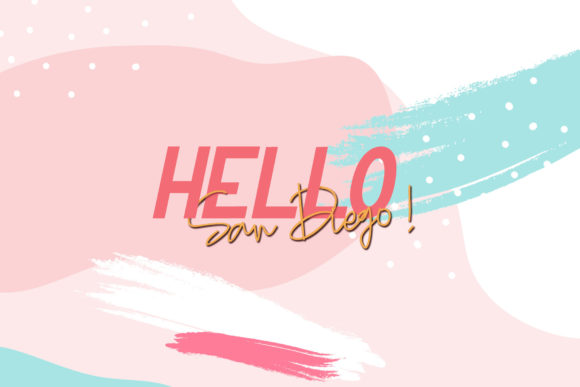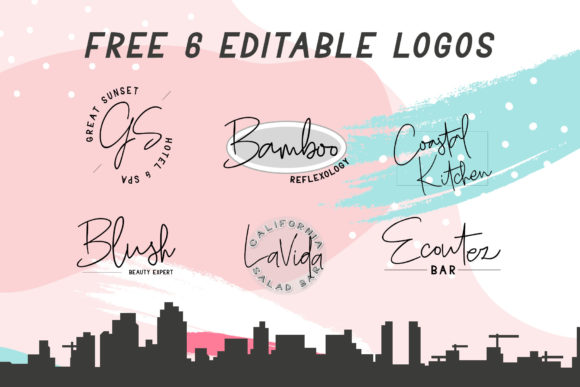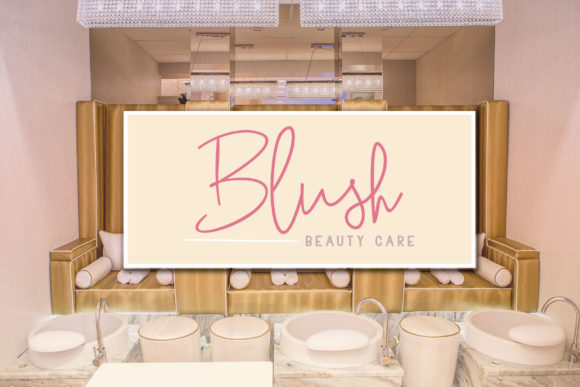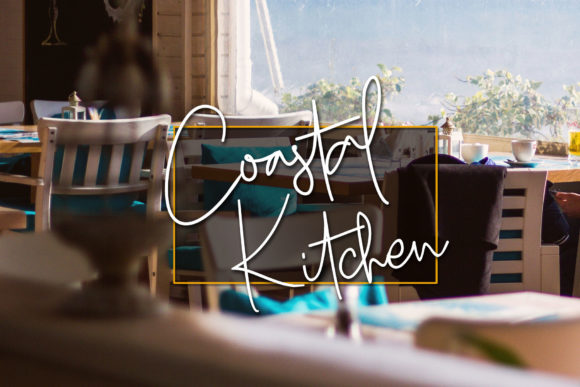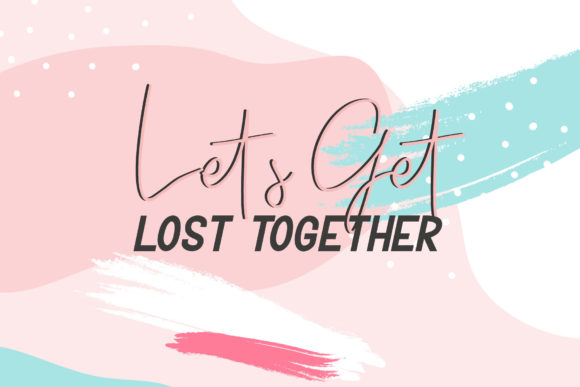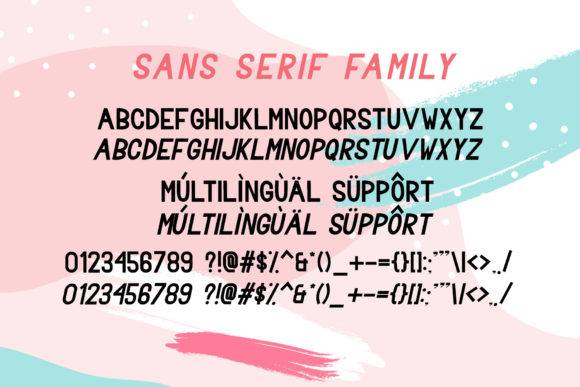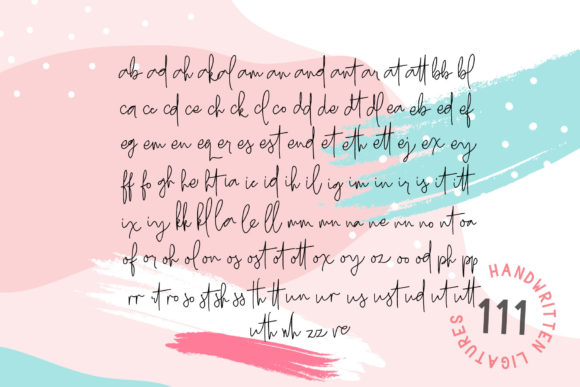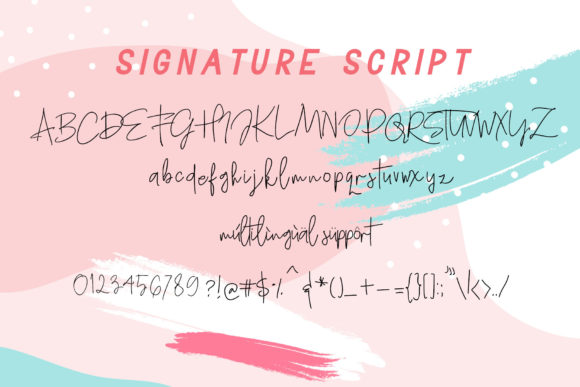
San Diego Duo Font
About San Diego Duo Font
The San Diego is a gorgeous combination of a sans serif and a signature script. These stylish fonts are great for modern designs, logos, posters, branding, social media or blog posts, headers and more!